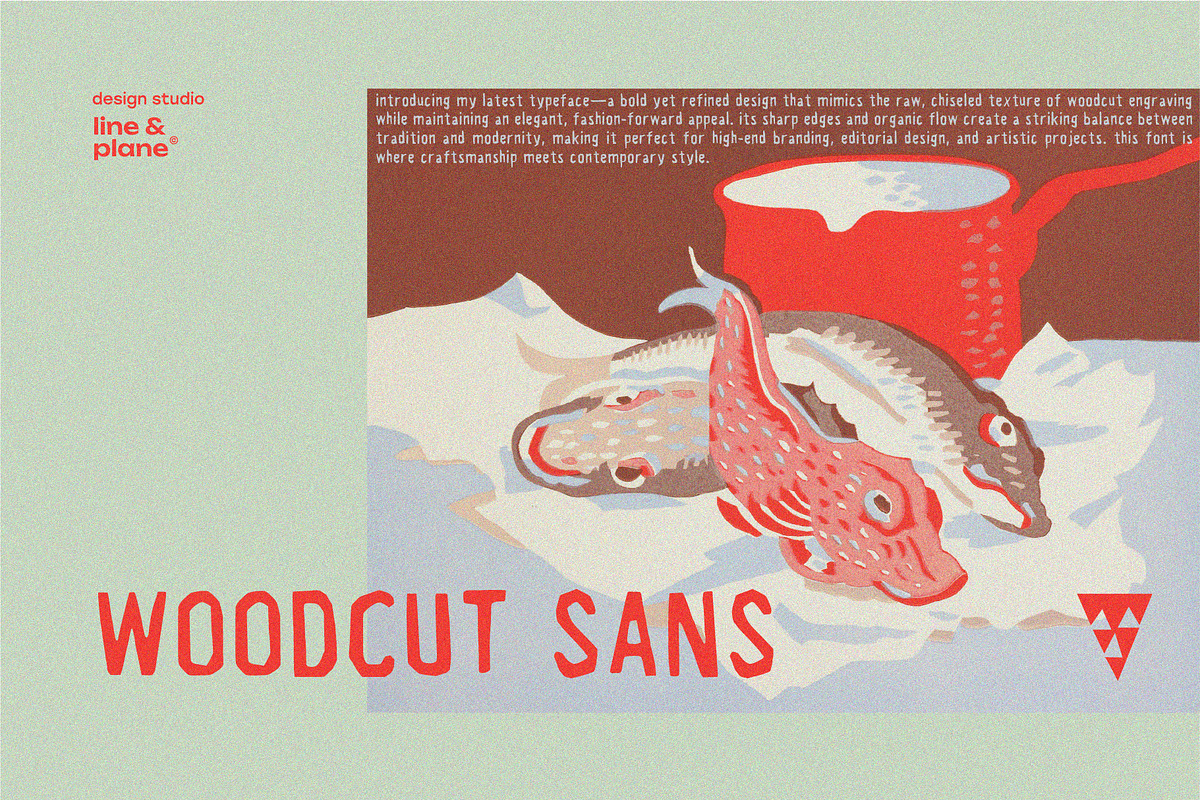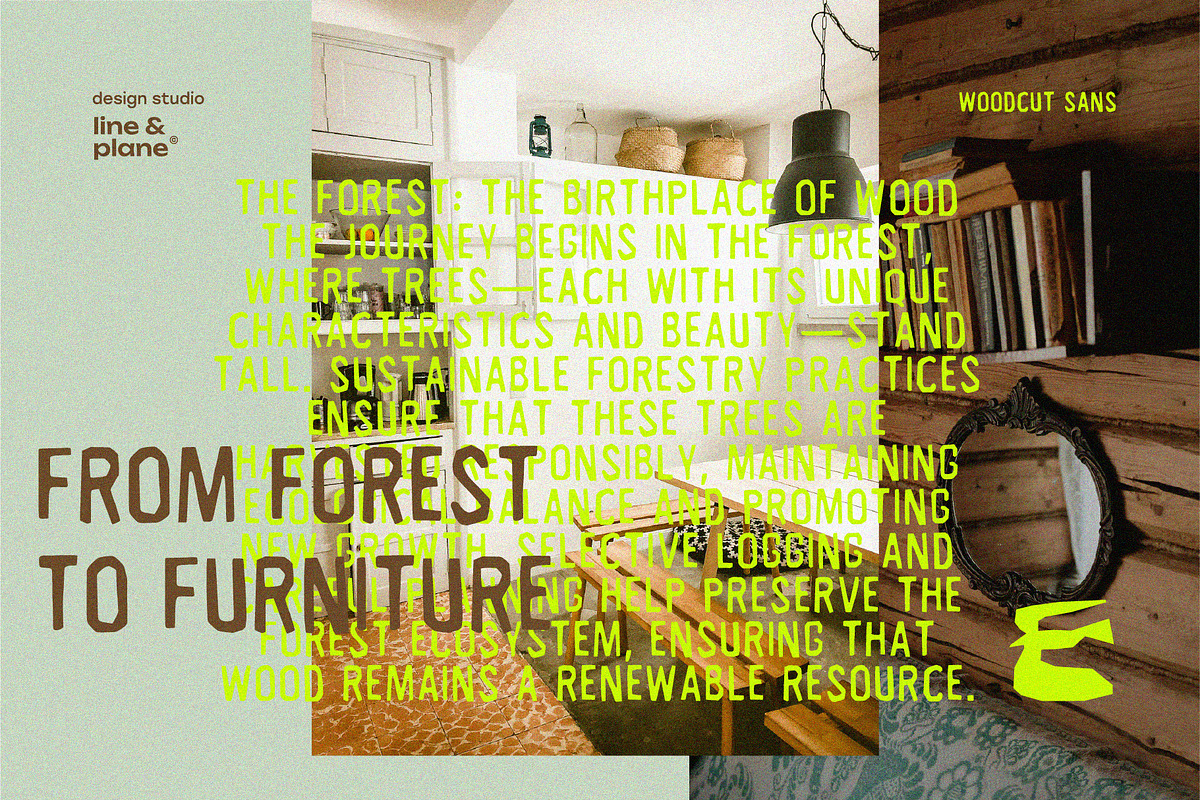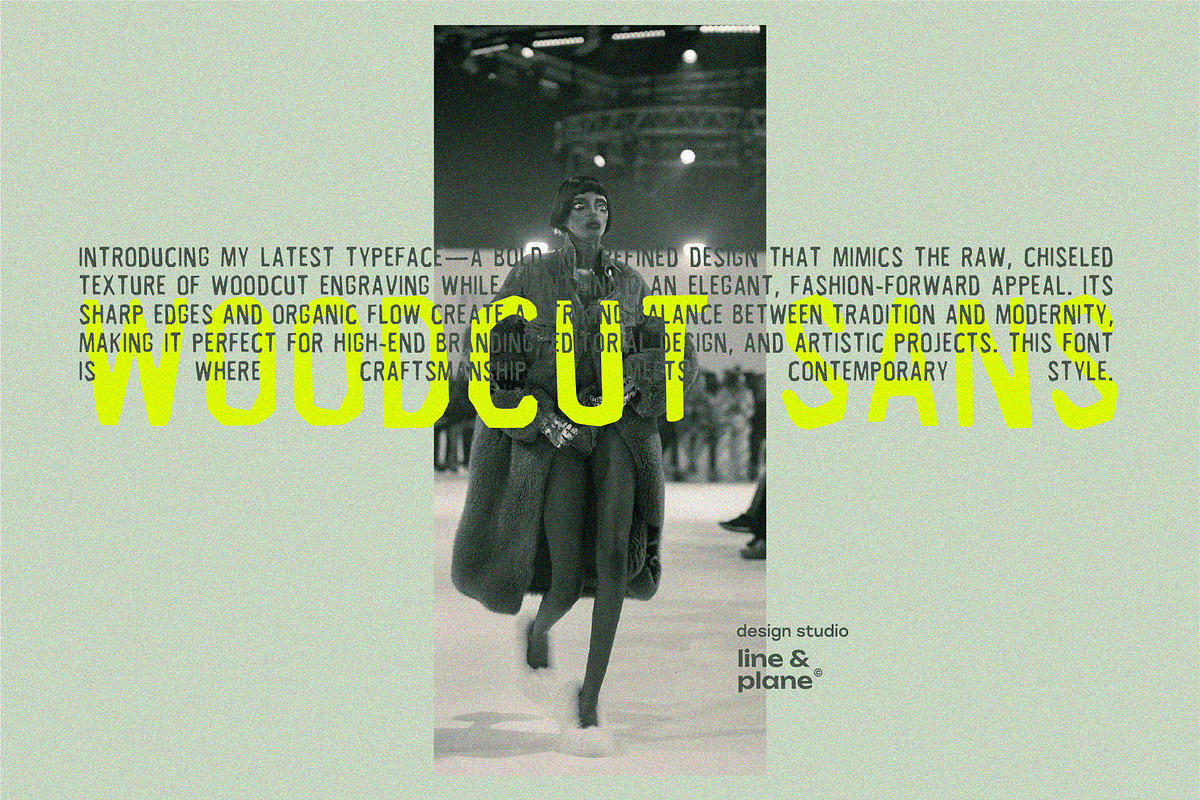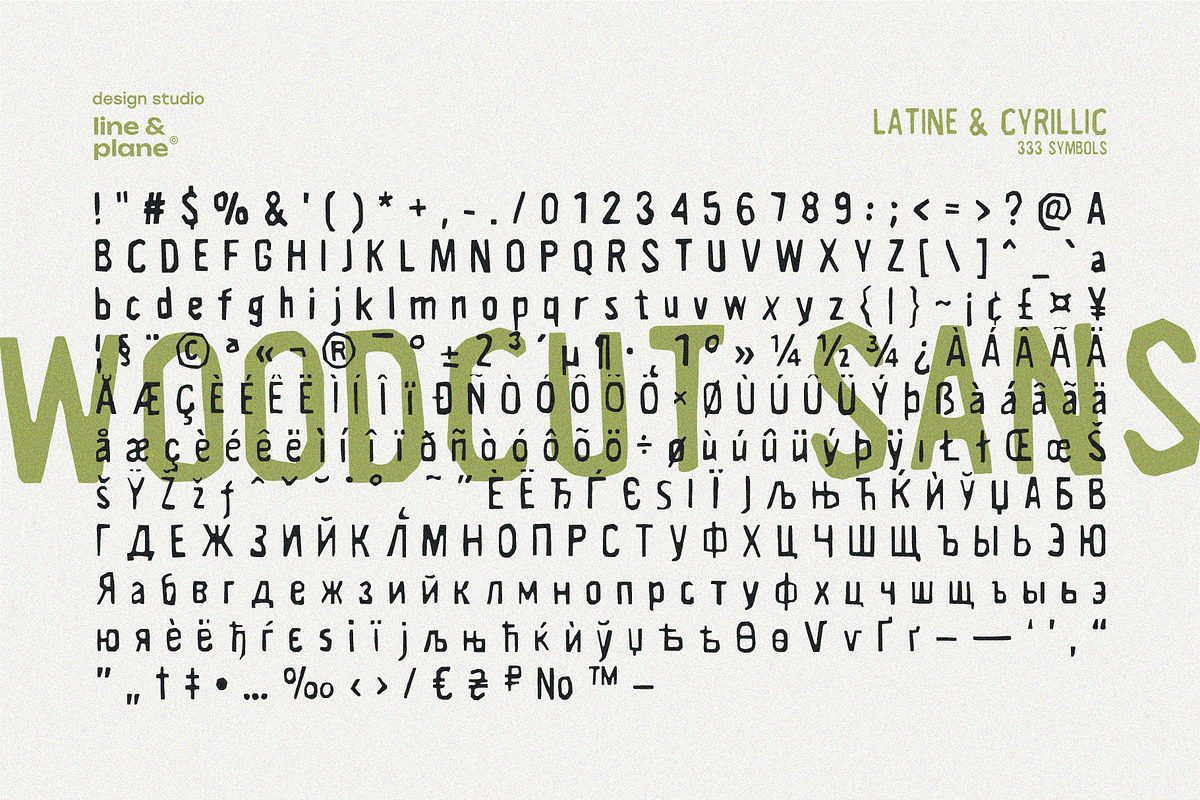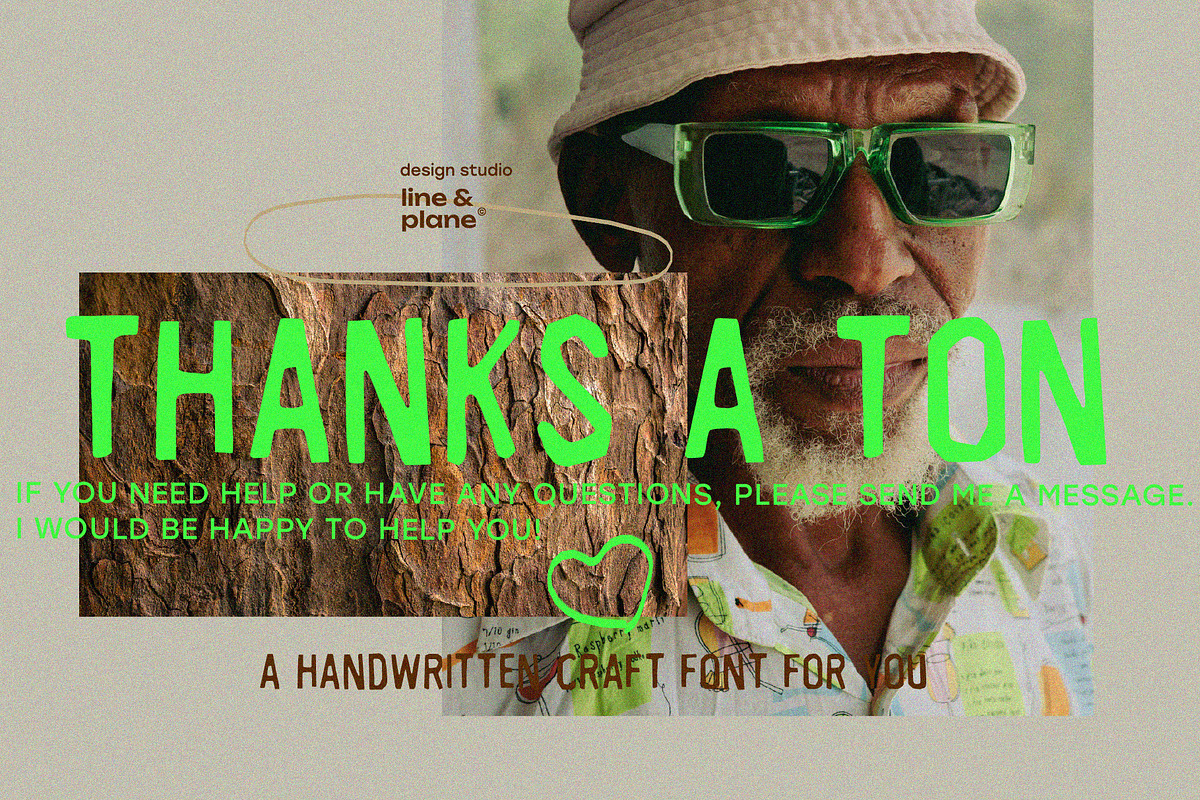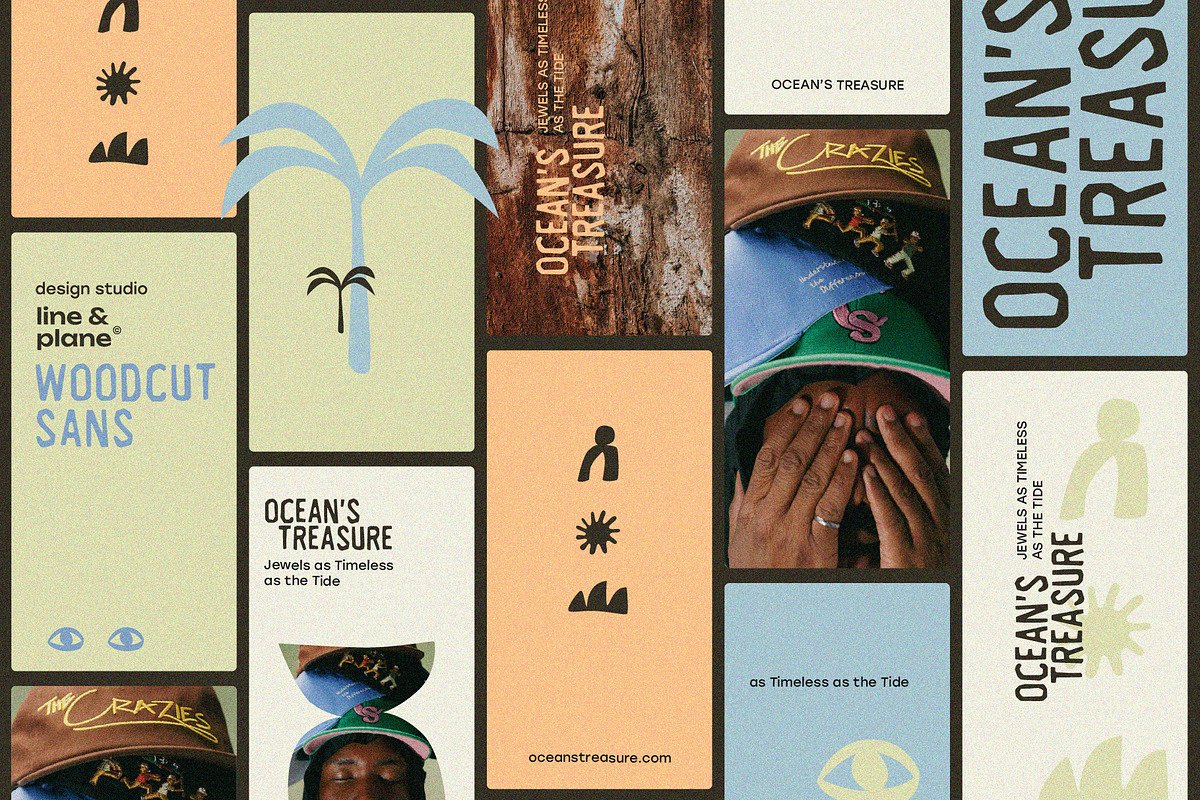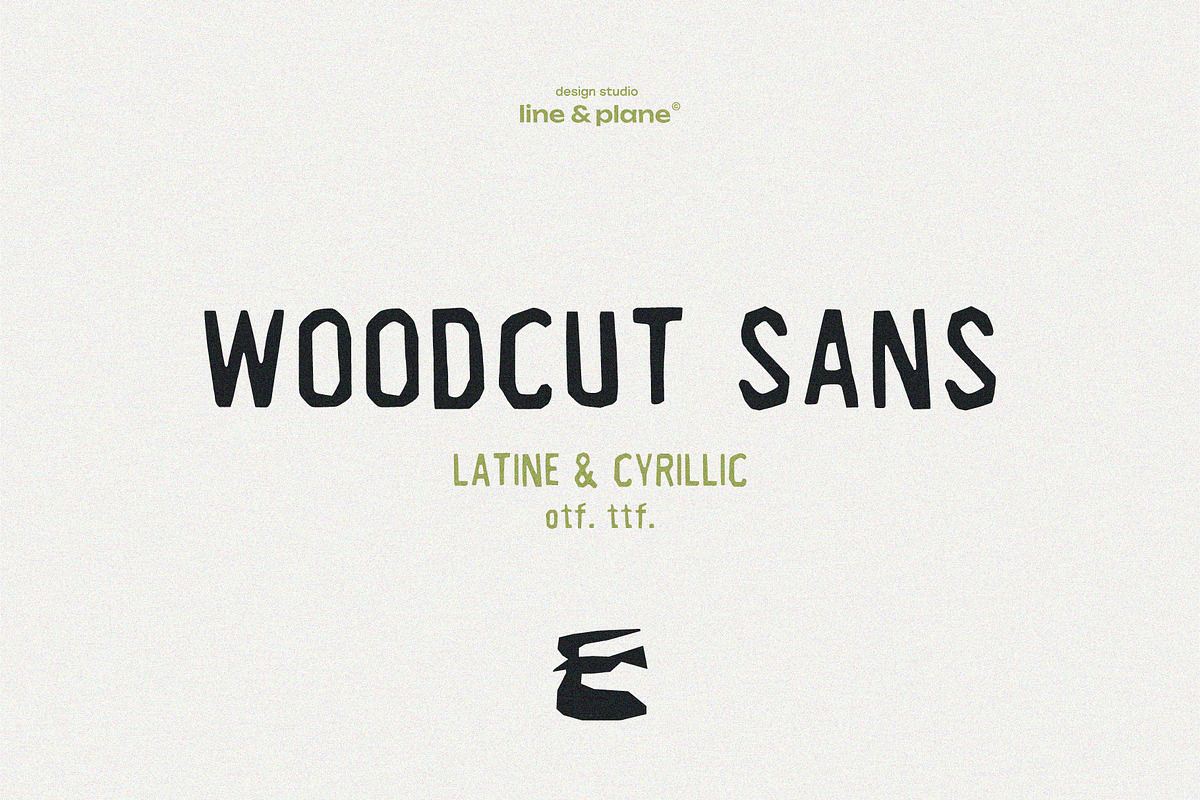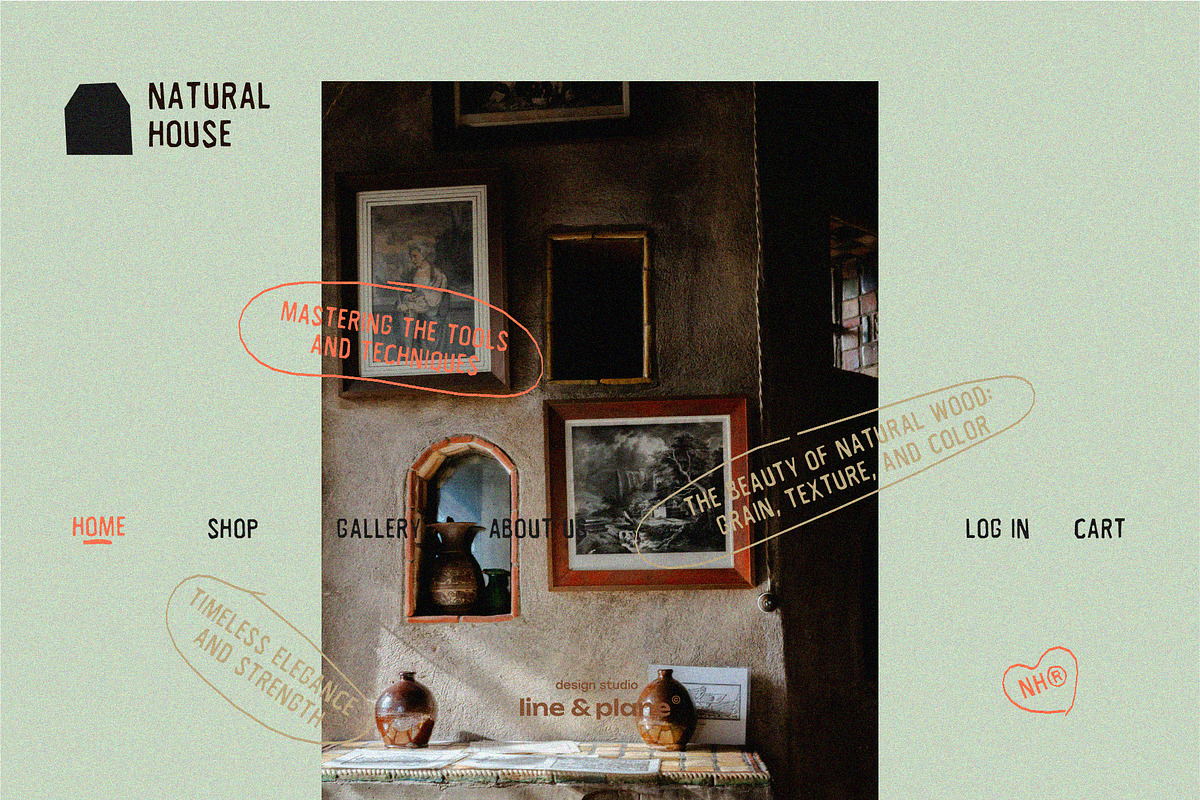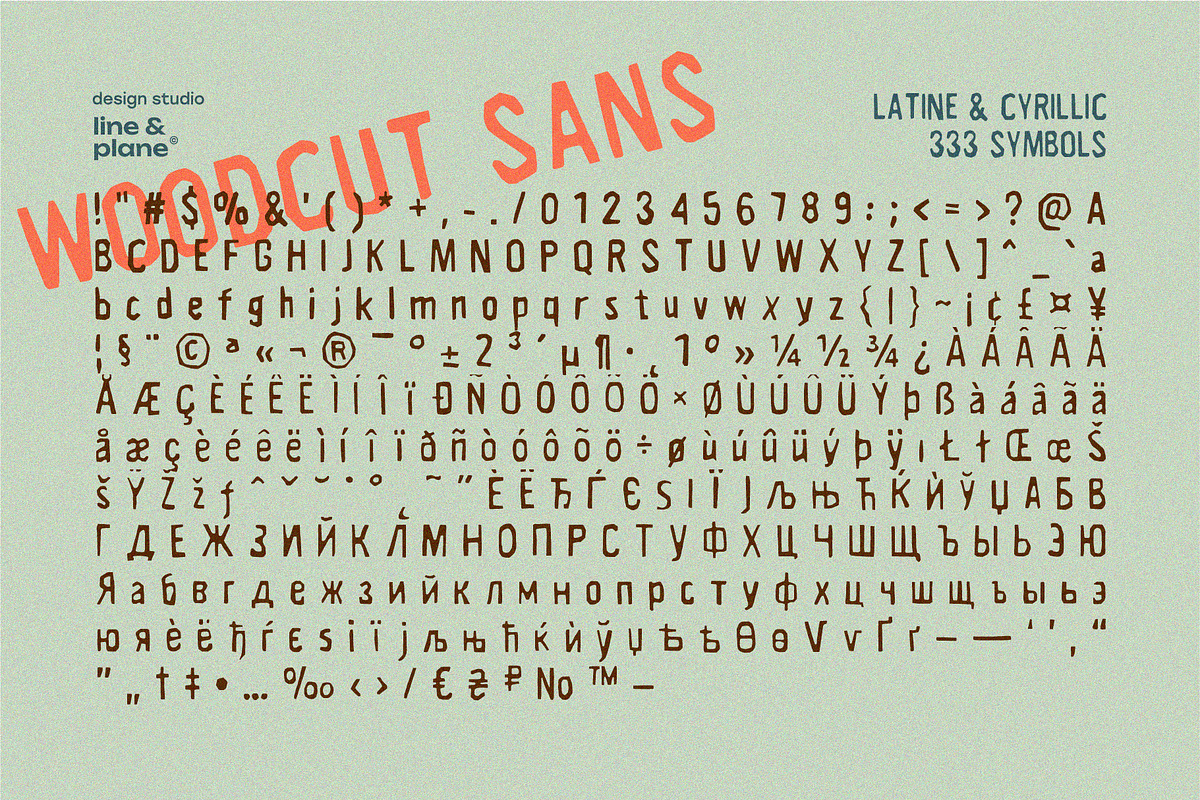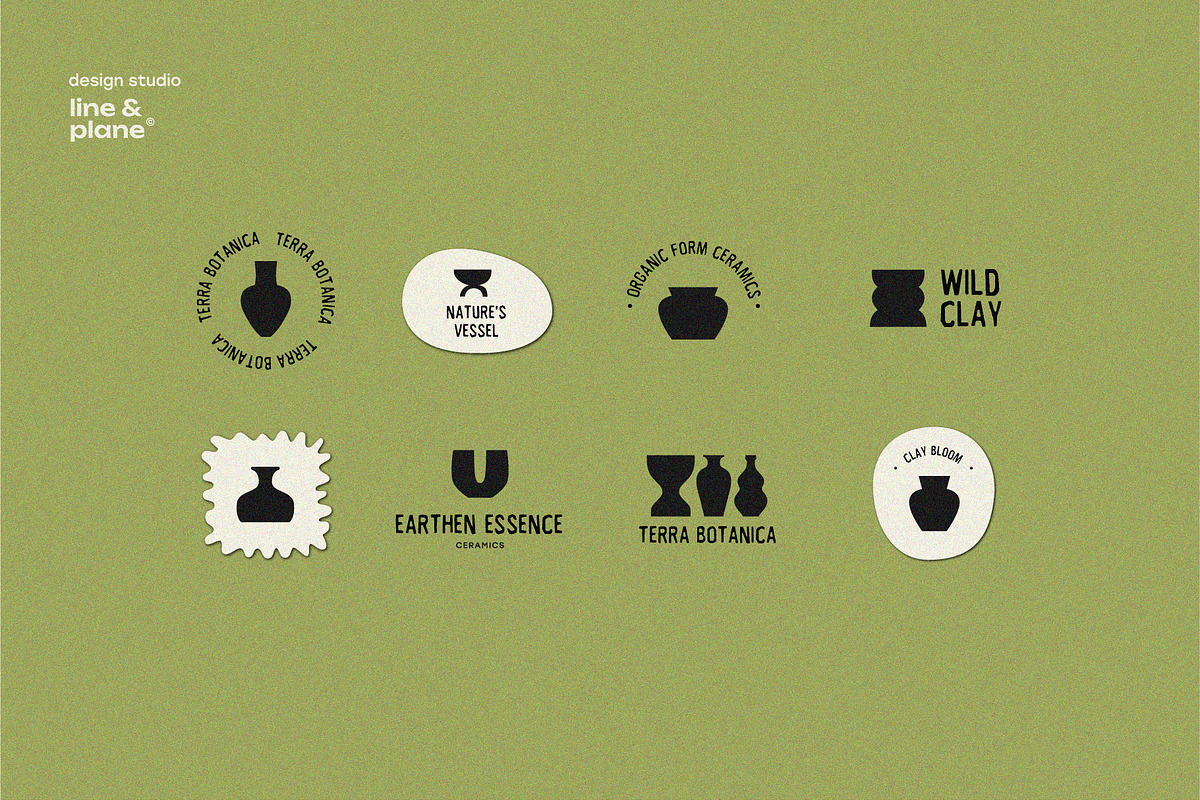
Woodcut Sans - Latine & Cyrillic
Introducing my Woodcut Sans Font — a bold yet refined design that mimics the raw, chiseled texture of woodcut engraving while maintaining an elegant, fashion-forward appeal. Its sharp edges and organic flow create a striking balance between tradition and modernity, making it perfect for high-end branding, editorial design, and artistic projects. This font is where craftsmanship meets contemporary style.
- Cyrillic and Latin - (333) symbols;
- Glyphs (Uppercase, Lowercase, Number, Punctuation & other);
- suitable for many languages;